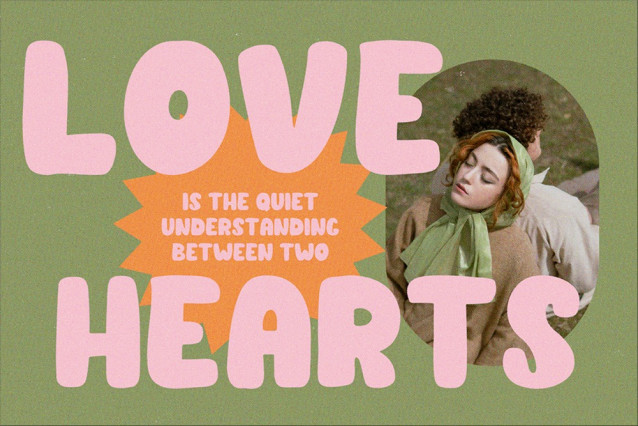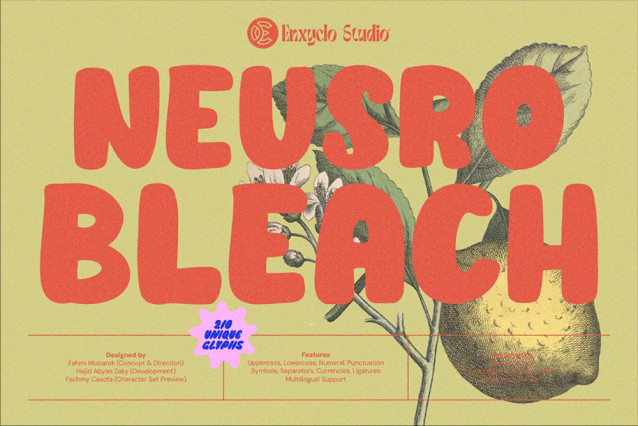
Neusro Bleach Font
Neusro Bleach Font, a chunky and cheerful bubble font with a bold, rounded personality! Designed to make your words pop with character, this font brings a sense of joy and playfulness to any design. Its fat and funky letterforms make it ideal for projects that need a fun, informal, and eye-catching touch. Neusro Bleach is perfect for kid-themed designs, social media graphics, bold product packaging, quirky branding, vibrant posters, and anything else that needs a bold and bubbly vibe. Whether you’re working on a cartoon project or launching a cute online brand, this font is ready to be the life of your design party.